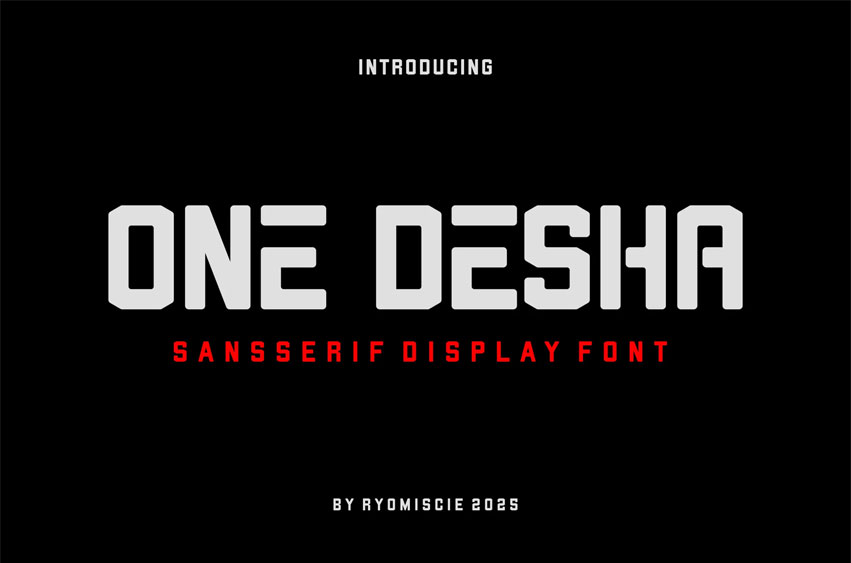
One Desha Font
One Desha Font Modern Font is a bold and authentic display font. The font is suitable for any branding project like logo, t-shirt printing, esport, and many more. outstanding in a wide range of contexts.